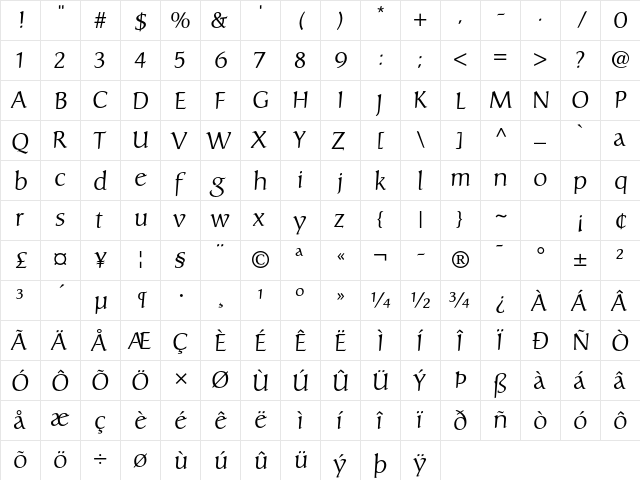
Carolina LT Std Roman
| Designer | Gottfried Pott |
Design Context for Carolina LT Std Typeface
Carolina LT Std is a composed and adaptable typeface that performs quietly and consistently across a wide range of design contexts. The delicate stroke weight brings airiness and refinement to layouts.